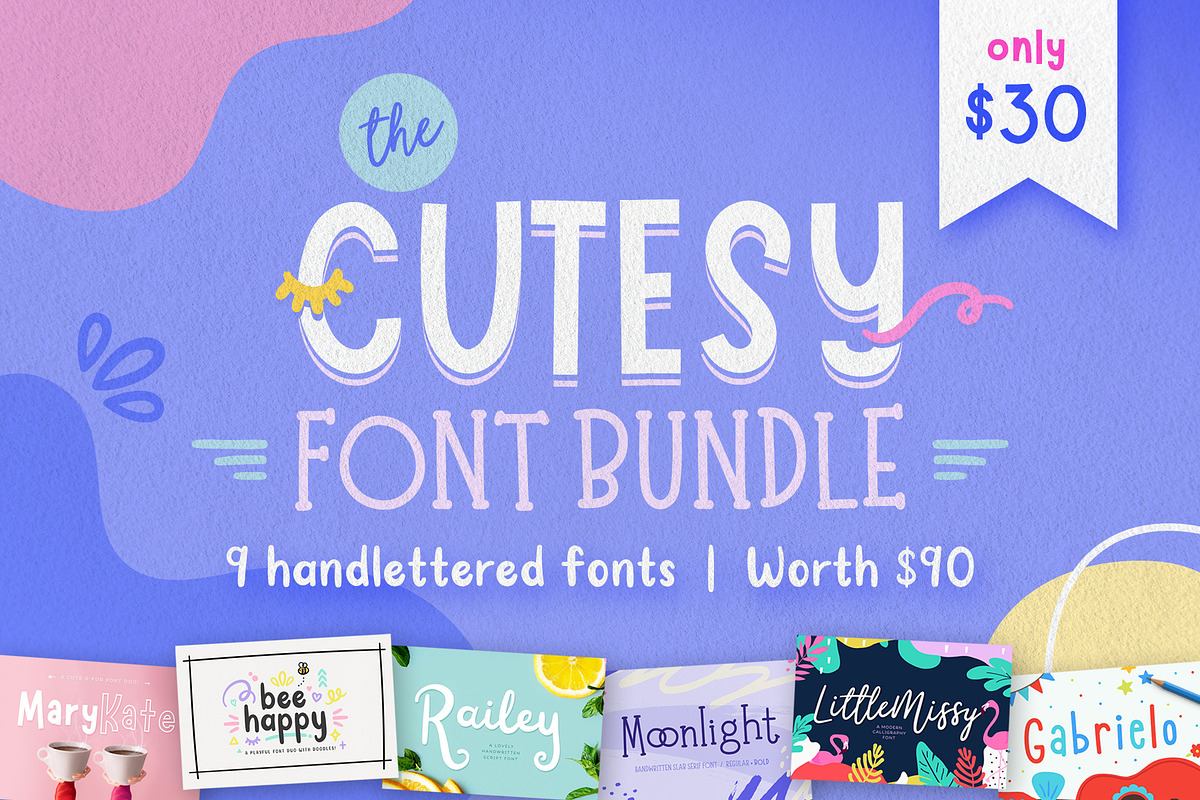
The Cutesy Font Bundle • 9 Fonts Free Download is a delightful collection of 9 adorable and playful fonts designed to bring joy and personality to any project. Whether you're creating for children’s products, social media graphics, greeting cards, DIY crafts, or anything that requires a cute, friendly feel, this bundle has you covered.
Each font in the bundle is unique, featuring various styles, from hand-lettered scripts to bold, chunky display fonts. The versatility of these fonts allows you to mix and match for all kinds of fun and vibrant design work.